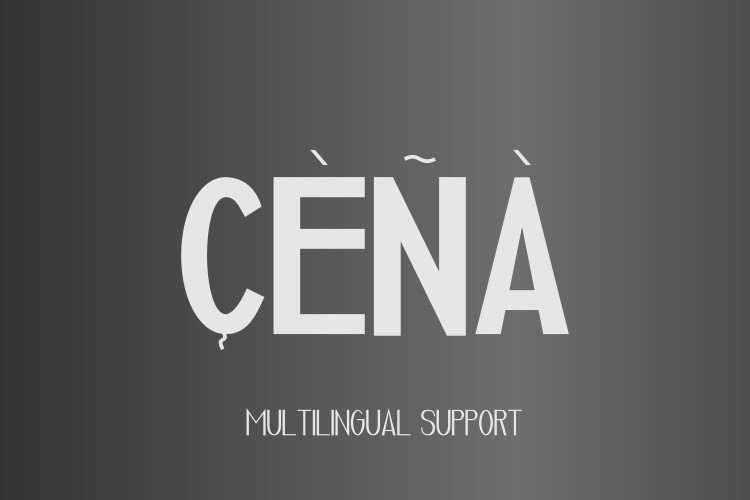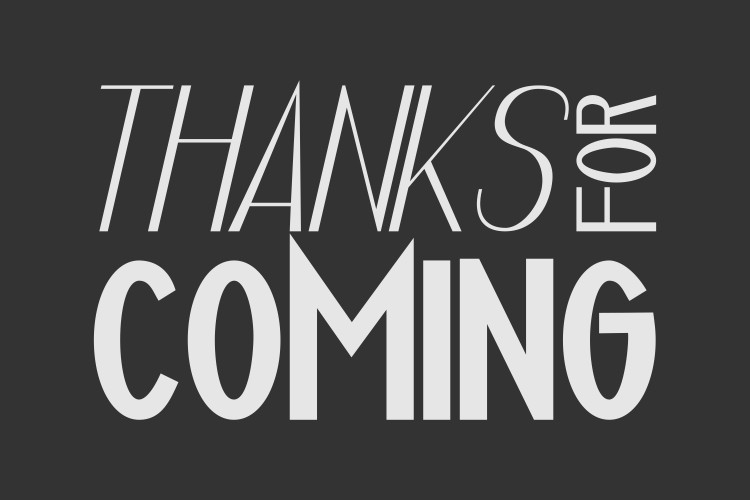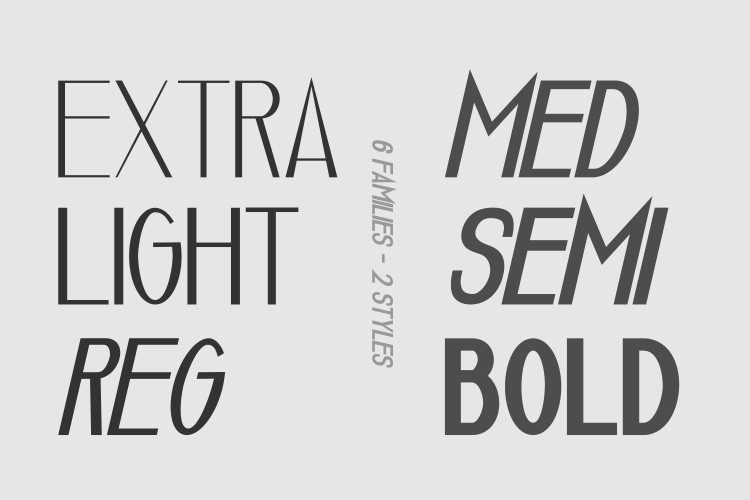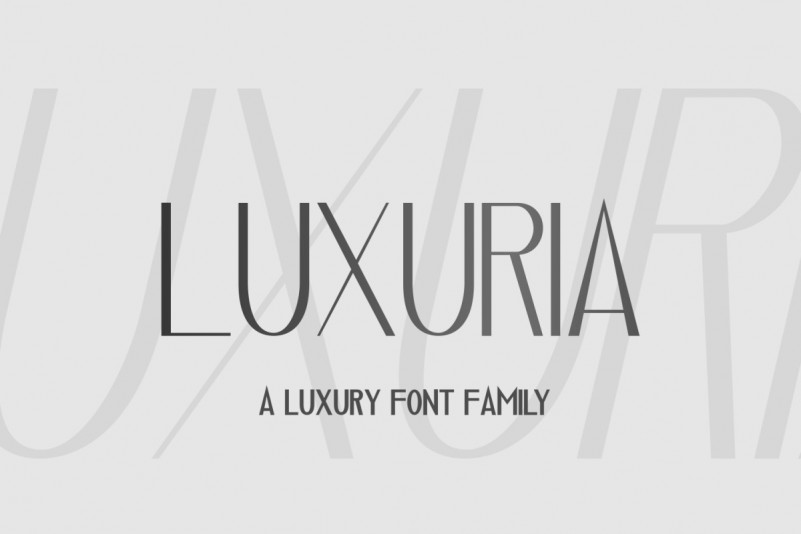
Luxuria // A Luxury Font FamilyRegular Font
Introducing Luxuria a luxury font family from us a font which has a total 12 font included with italic style.Luxuria is very suitable for many project such as a book cover,magazine,headline,tagline,logo,poster and many more !.